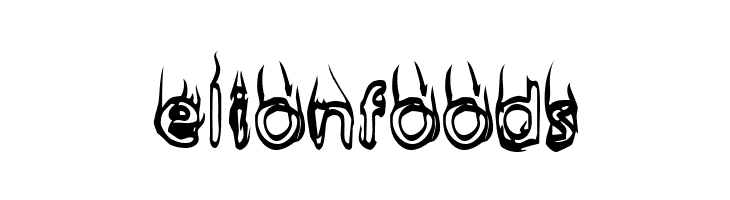
A bold, playful font with jagged edges and dynamic style.
A playful and bold font with exaggerated curves and dynamic strokes.
A bold, hand-drawn font with energetic, brush-like strokes.
A bold, flame-inspired font with dynamic, energetic characters.
A bold, energetic handwritten font with fluid strokes and a personal touch.